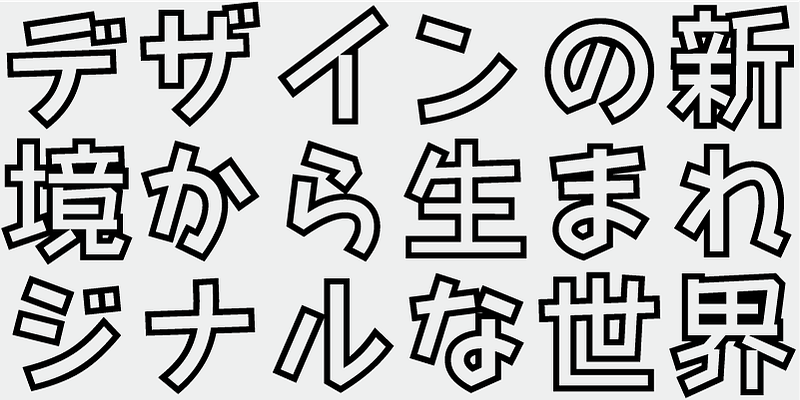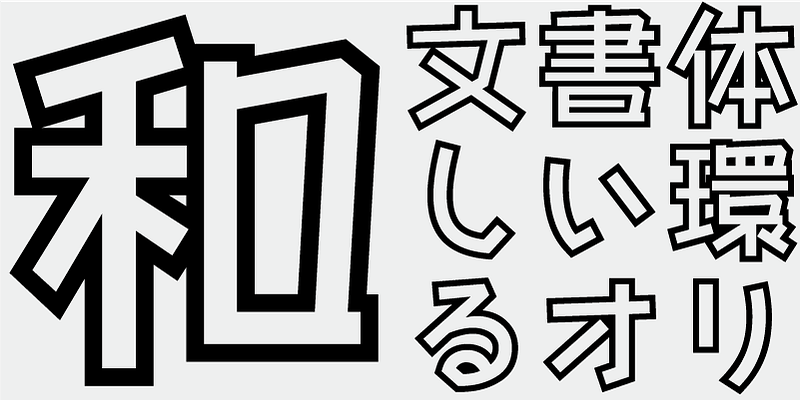
An energetic and cheerful typeface that makes extensive use of straight lines.
This font includes the top 1,000 kanji characters selected from usage frequency lists compiled by newspaper companies, publishers, and the National Institute for Japanese Language and Linguistics, plus 206 additional characters such as kana, alphanumerics, and carefully selected symbols and punctuation marks.